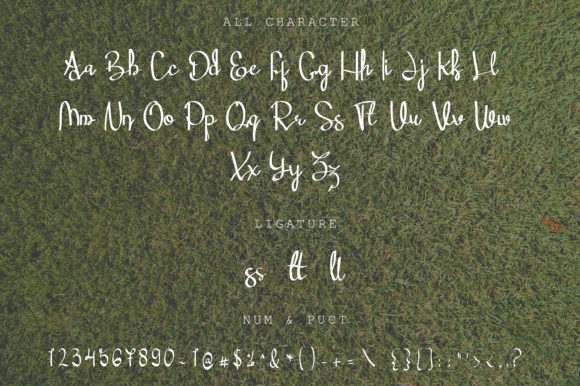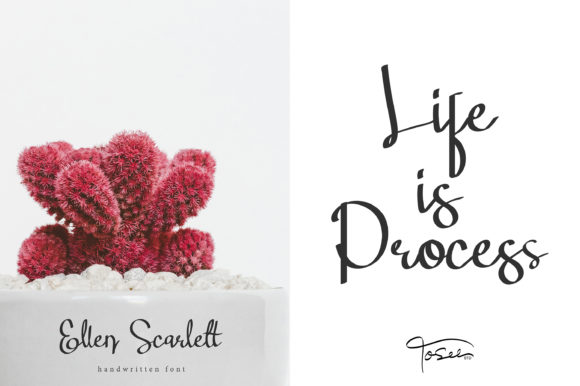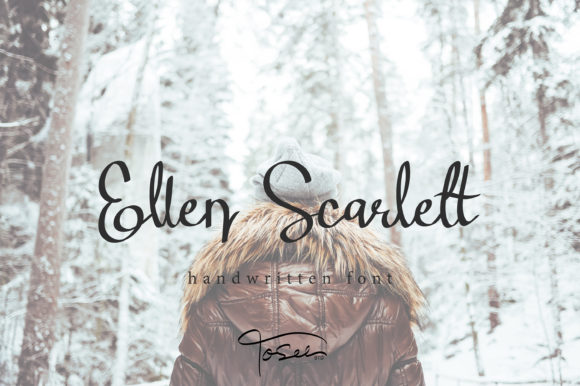
Ellen Scarlett Font: Elevate Your Design with Elegant Script
Are you a designer or crafter looking for a font that exudes elegance, minimalism, and modernity? Look no further than Ellen Scarlett, a beautiful script font crafted with natural hand movements. In this article, we’ll dive into the world of Ellen Scarlett, exploring its unique features, benefits, and uses.
The Story Behind Ellen Scarlett
Ellen Scarlett is a script font designed to capture the fluidity and expressiveness of handwriting. With its natural, flowing strokes, this font is perfect for adding a touch of sophistication to your designs. Ellen Scarlett’s creator aimed to craft a font that would evoke a sense of elegance and refinement, making it ideal for a wide range of applications, from branding and advertising to packaging and digital media.
Key Features of Ellen Scarlett
- Natural Hand Movement: Ellen Scarlett’s unique design is inspired by the natural movement of handwriting, giving it a distinctive, human touch.
- Elegant and Minimalist: This font’s clean lines, subtle curves, and restrained ornamentation make it perfect for designs that require a touch of sophistication.
- Modern Aesthetic: Ellen Scarlett’s sleek, contemporary design ensures that your designs will look fresh and modern.
- Versatile: This font is suitable for a wide range of applications, from digital media and advertising to packaging and print design.
Benefits of Using Ellen Scarlett
So why choose Ellen Scarlett for your design projects? Here are just a few benefits of using this beautiful script font:
- Adds Elegance: Ellen Scarlett’s sophisticated design instantly elevates your designs, adding a touch of refinement and luxury.
- Enhances Readability: The font’s clear, flowing strokes ensure that your text is easy to read, even at small sizes.
- Versatile: Ellen Scarlett works beautifully in a variety of contexts, from headings and titles to body text and captions.
- Time-Saving: With Ellen Scarlett, you can create stunning designs quickly and easily, without sacrificing style or sophistication.
Using Ellen Scarlett in Your Design Projects
So how can you use Ellen Scarlett in your design projects? Here are a few ideas to get you started:
- Branding and Logo Design: Use Ellen Scarlett to create a sophisticated brand identity that exudes elegance and refinement.
- Advertising and Marketing: Add a touch of luxury to your advertising and marketing materials with Ellen Scarlett’s beautiful script.
- Packaging Design: Elevate your packaging designs with Ellen Scarlett’s elegant, modern aesthetic.
- Digital Media: Use Ellen Scarlett to add a touch of sophistication to your digital media, including social media graphics, blog posts, and website headers.
Tips and Tricks for Working with Ellen Scarlett
To get the most out of Ellen Scarlett, here are a few tips and tricks to keep in mind:
- Experiment with Font Sizes: Ellen Scarlett works beautifully at a range of font sizes, from large headings to small body text.
- Play with Color: This font looks stunning in a variety of colors, from rich blacks and dark grays to bright, bold hues.
- Mix and Match: Combine Ellen Scarlett with other fonts to create a unique, eye-catching design.
| Font Name | Ellen Scarlett Font |
| Author | toseestudio |
In conclusion, Ellen Scarlett is a beautiful script font that can elevate your designs to new heights. With its natural hand movement, elegant design, and modern aesthetic, this font is perfect for designers and crafters looking to add a touch of sophistication to their work. Whether you’re working on a branding project, advertising campaign, or packaging design, Ellen Scarlett is sure to impress.